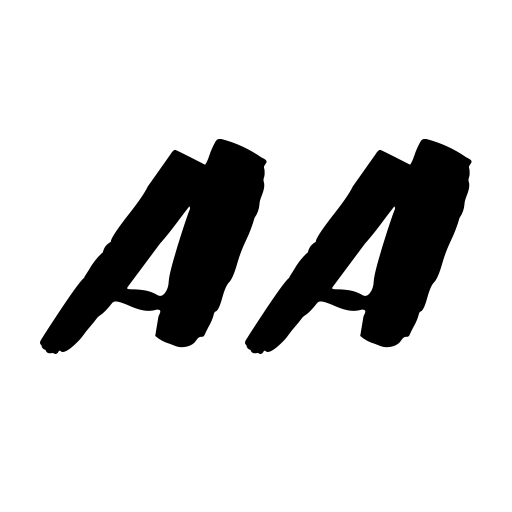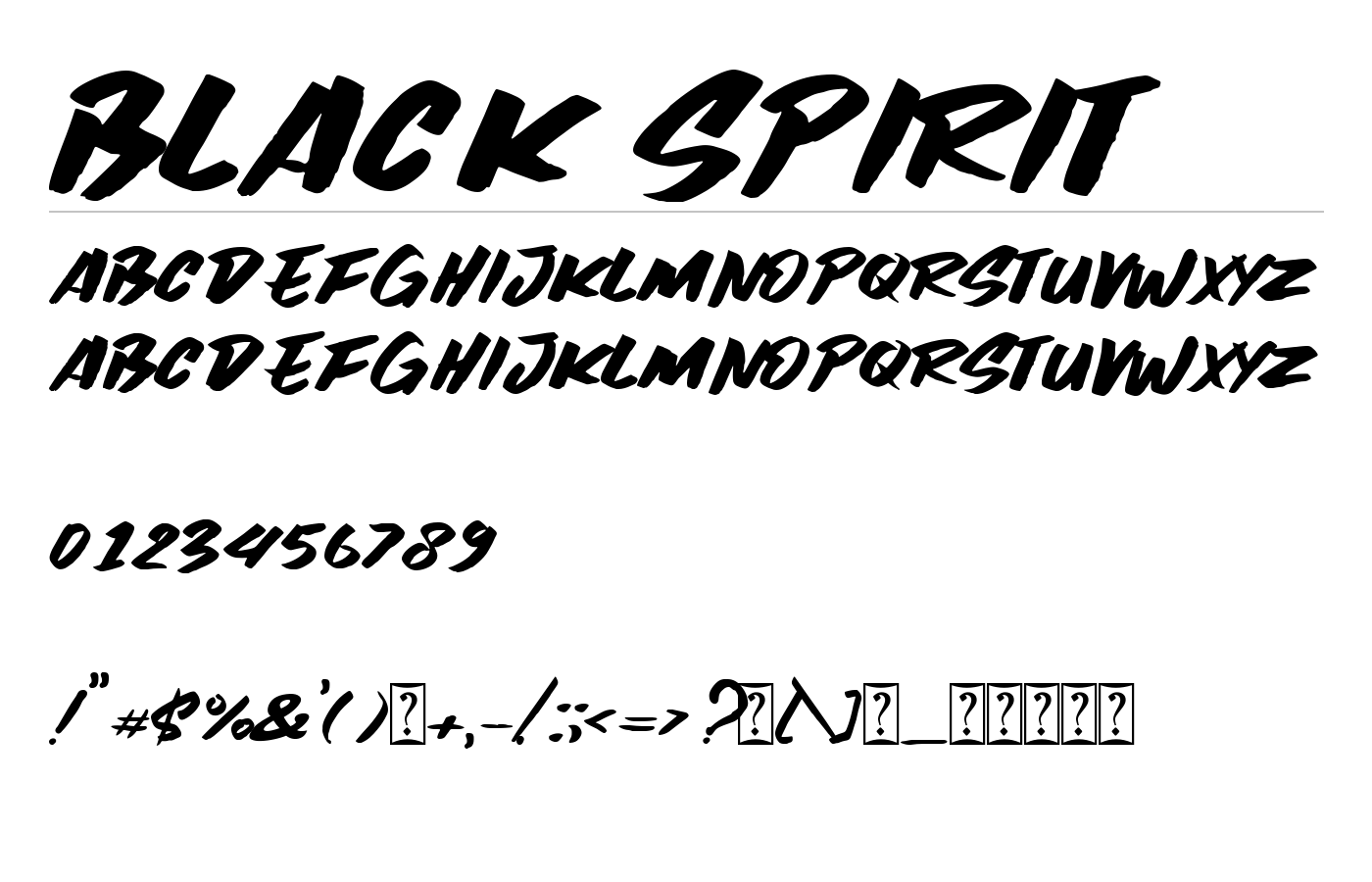
Black Spirit is a bold, brush-style script font that exudes energy and a hand-painted feel with its sharp, dynamic strokes and slightly condensed letterforms. Its expressive, uppercase design is perfect for creating impactful headlines, logos, and posters where a strong, artistic personality is desired. This font brings a sense of movement and creativity, making it ideal for brands or projects that want to stand out with a modern, edgy flair.
Black Spirit Font
About Black Spirit Font
| Font family | Black Spirit Font |
| Designer | Lettersiro 2018 |